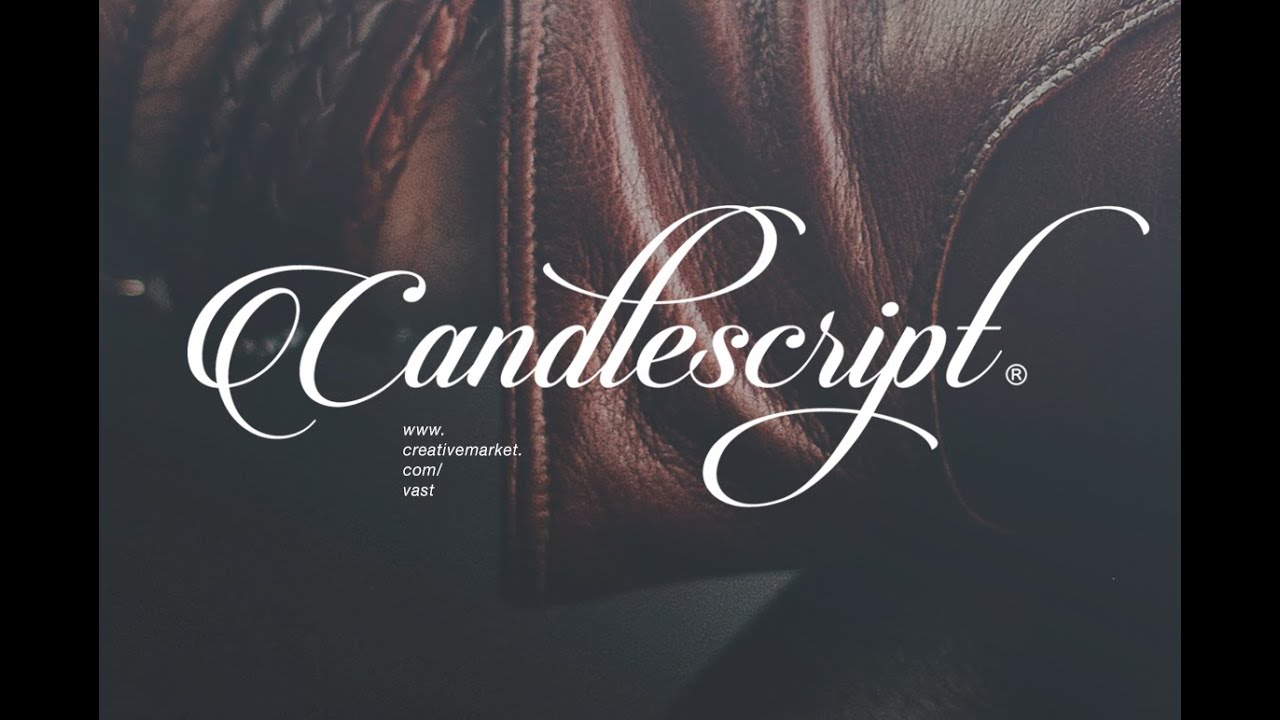
Candlescript Pro A Script Font By Vast
Candlescript Font By Vast Fontriver The candlescript pro font was designed by m fairuzulhaq aka ve, founder vast (logotype & independent type foundry from indonesia), and first published in august 2014. the candlescript pro font has a script and italic style. Candlescript font was designed by m fairuzulhaq aka ve, founder vast (logotype & independent type foundry from indonesia), and first published in august 2014. candlescript font have a script and italic style.
Candlescript Font By Vast Fontriver Candlescript pro font: designed by m fairuzulhaq, also known as ve, founder of vast (an independent logo design and typesetting company from indonesia), and first published in august 2014. candlescript pro font features both handwritten and italic styles. The candlescript pro font was designed by m fairuzulhaq aka ve, founder vast (logotype & independent type foundry from indonesia), and first published in august 2014. the candlescript pro font has a script and italic style. Unleash the full power of elegant, expressive lettering with **candlescript pro**—a meticulously crafted, italic script font designed by m fairuzulhaq, founder of vast, an independent type foundry from indonesia. Candlescript is a new display font and it was designed by m fairuzulhaq aka vast (logotype & independent type foundry), and first published in august 2014. candlescript font have a script and italic style.
Candlescript Font By Vast Fontriver Unleash the full power of elegant, expressive lettering with **candlescript pro**—a meticulously crafted, italic script font designed by m fairuzulhaq, founder of vast, an independent type foundry from indonesia. Candlescript is a new display font and it was designed by m fairuzulhaq aka vast (logotype & independent type foundry), and first published in august 2014. candlescript font have a script and italic style. Candlescript pro is a highly detailed calligraphic handwriting type created and published by vast, an indie logotype & independent type foundry. Download free candlescript font, view its character map and generate text based images or logos with candlescript font online. The candlescript pro font was designed by m fairuzulhaq aka ve, founder vast (logotype & independent type foundry from indonesia), and first published in august 2014. the candlescript pro font has a script and italic style. The candlescript pro font was designed by m fairuzulhaq aka ve, founder vast (logotype & independent type foundry from indonesia), and first published in.